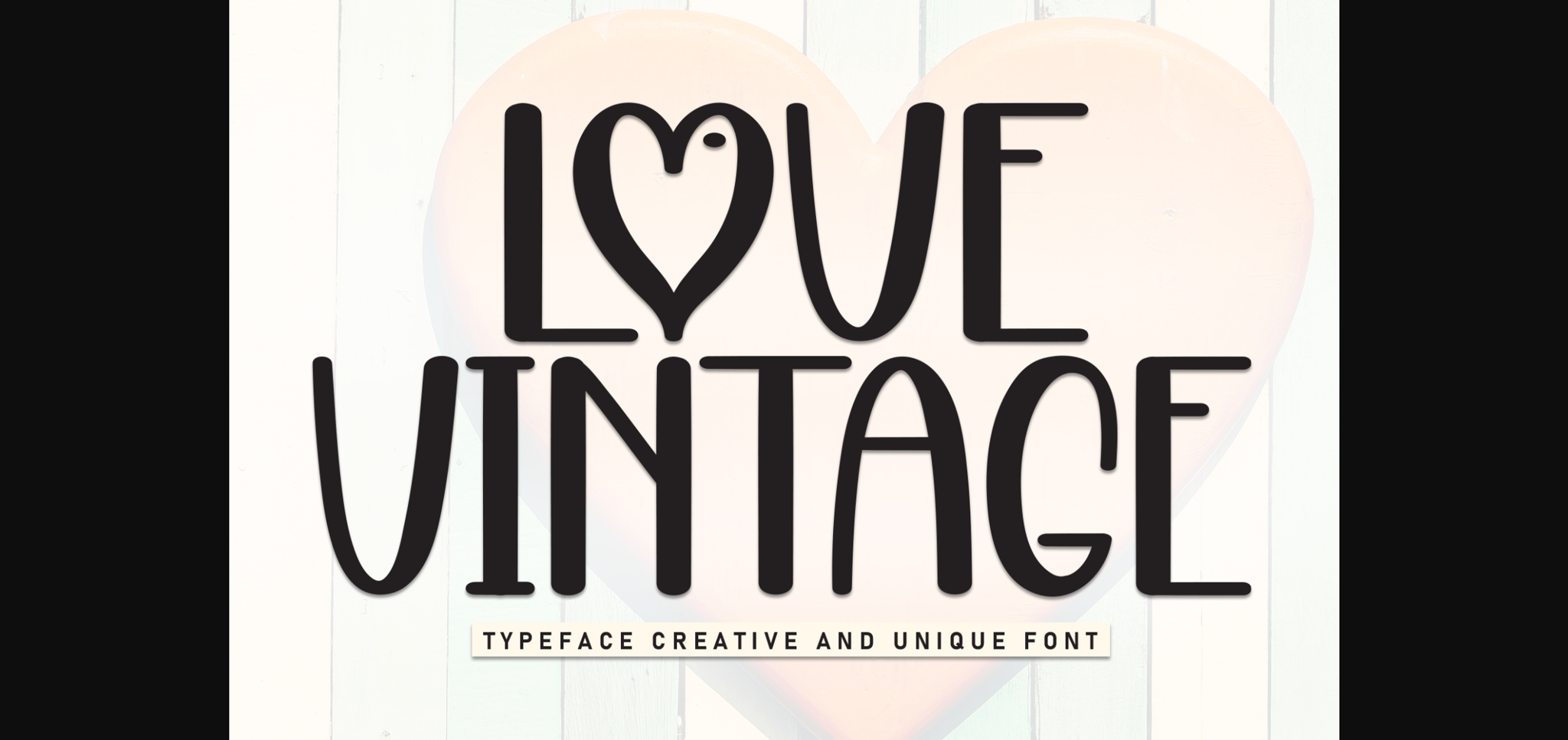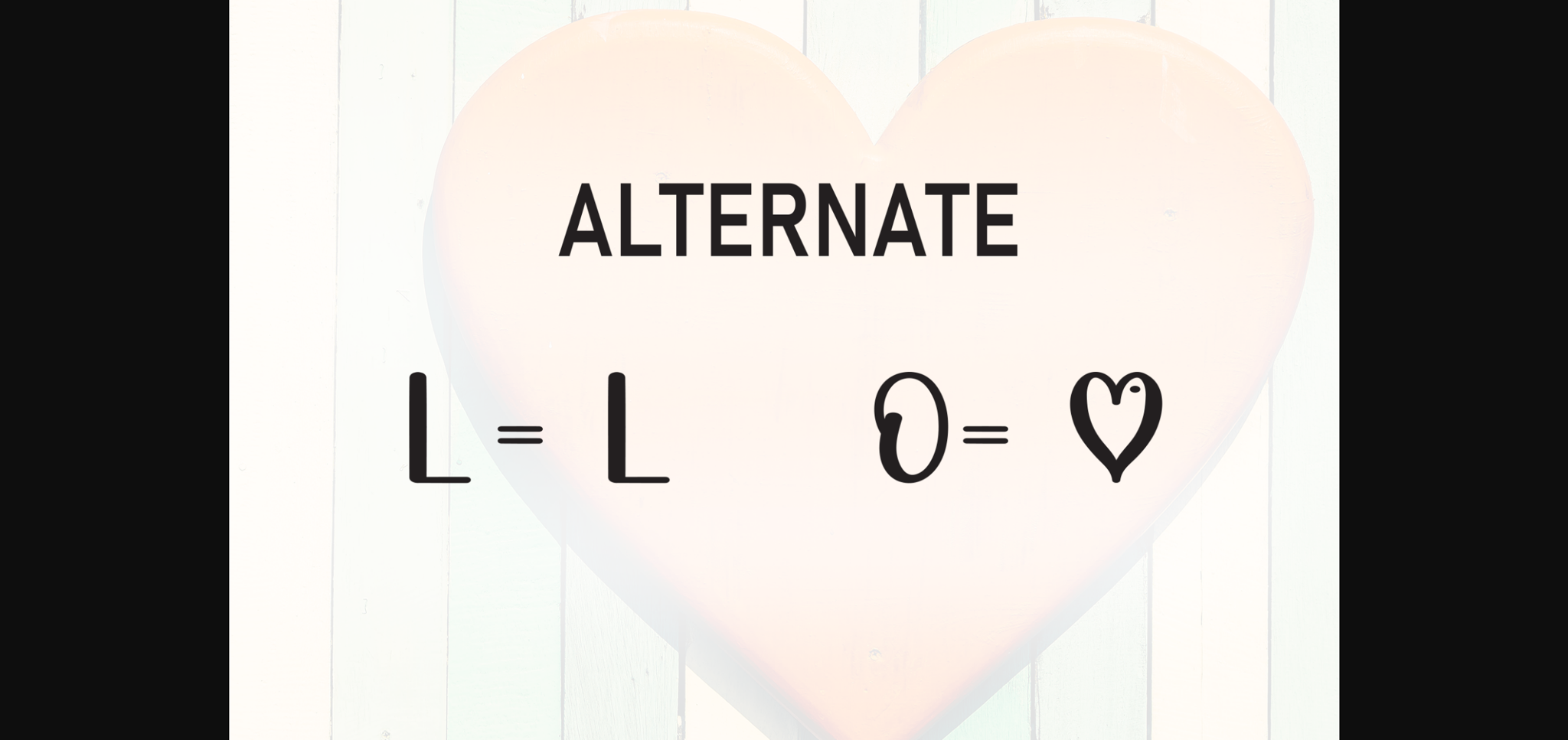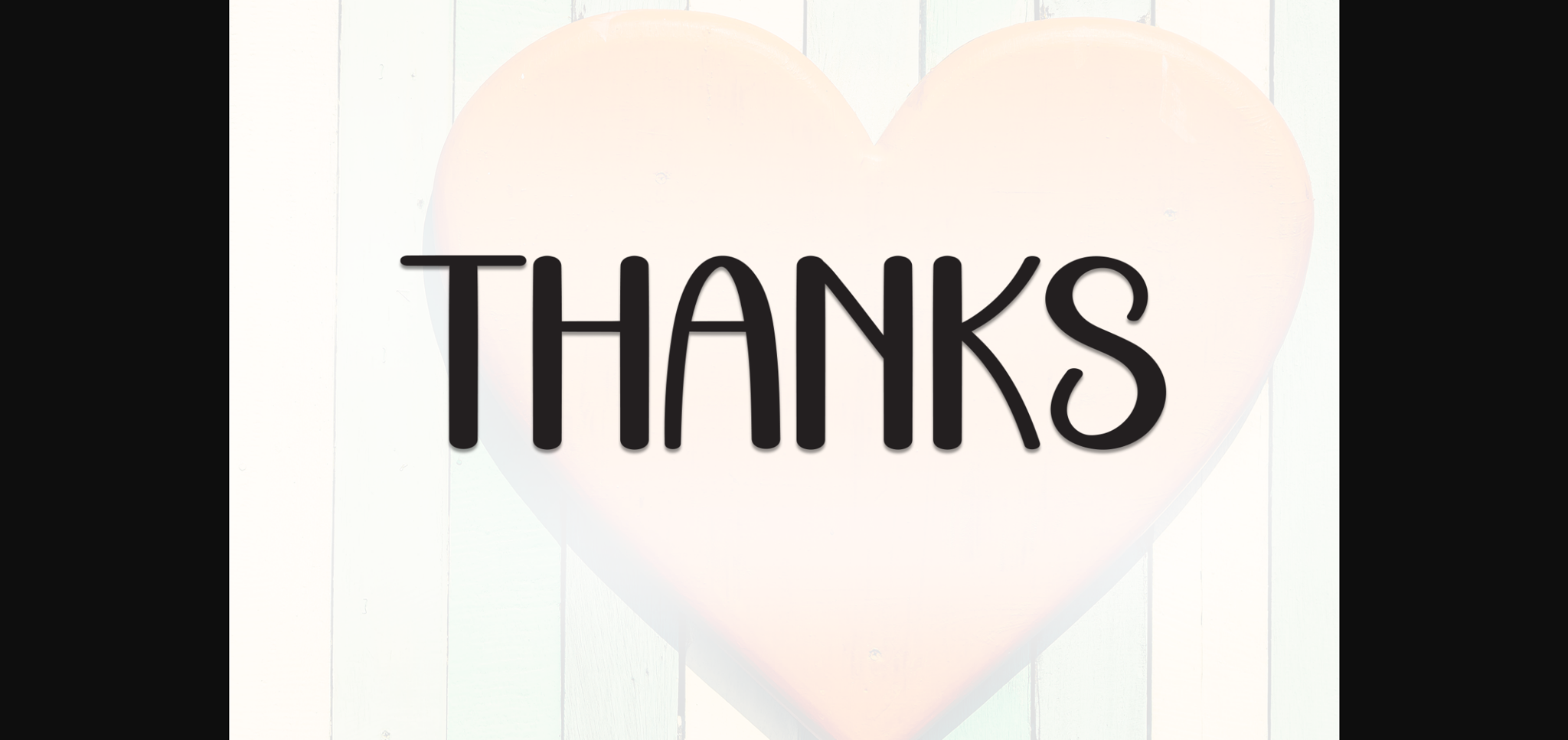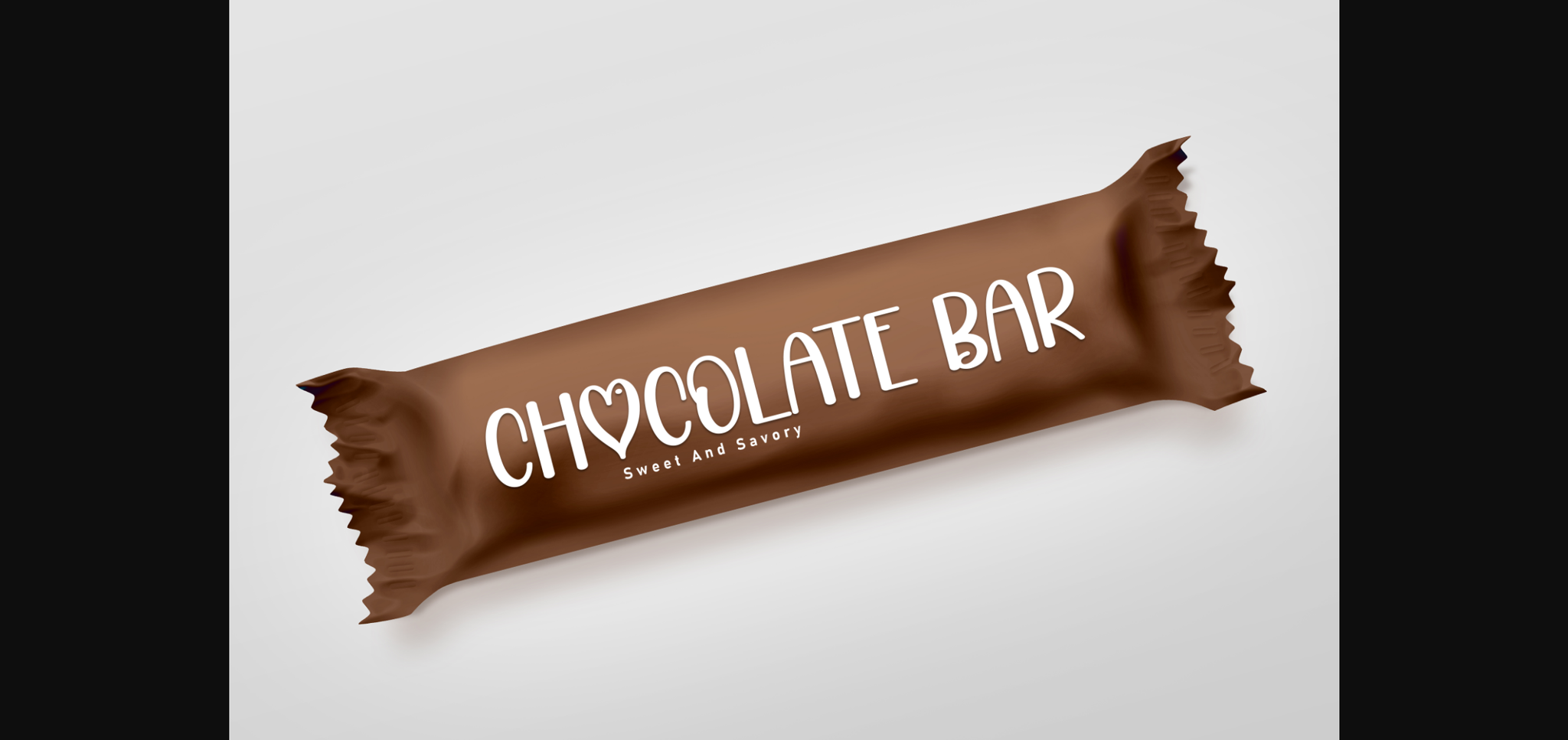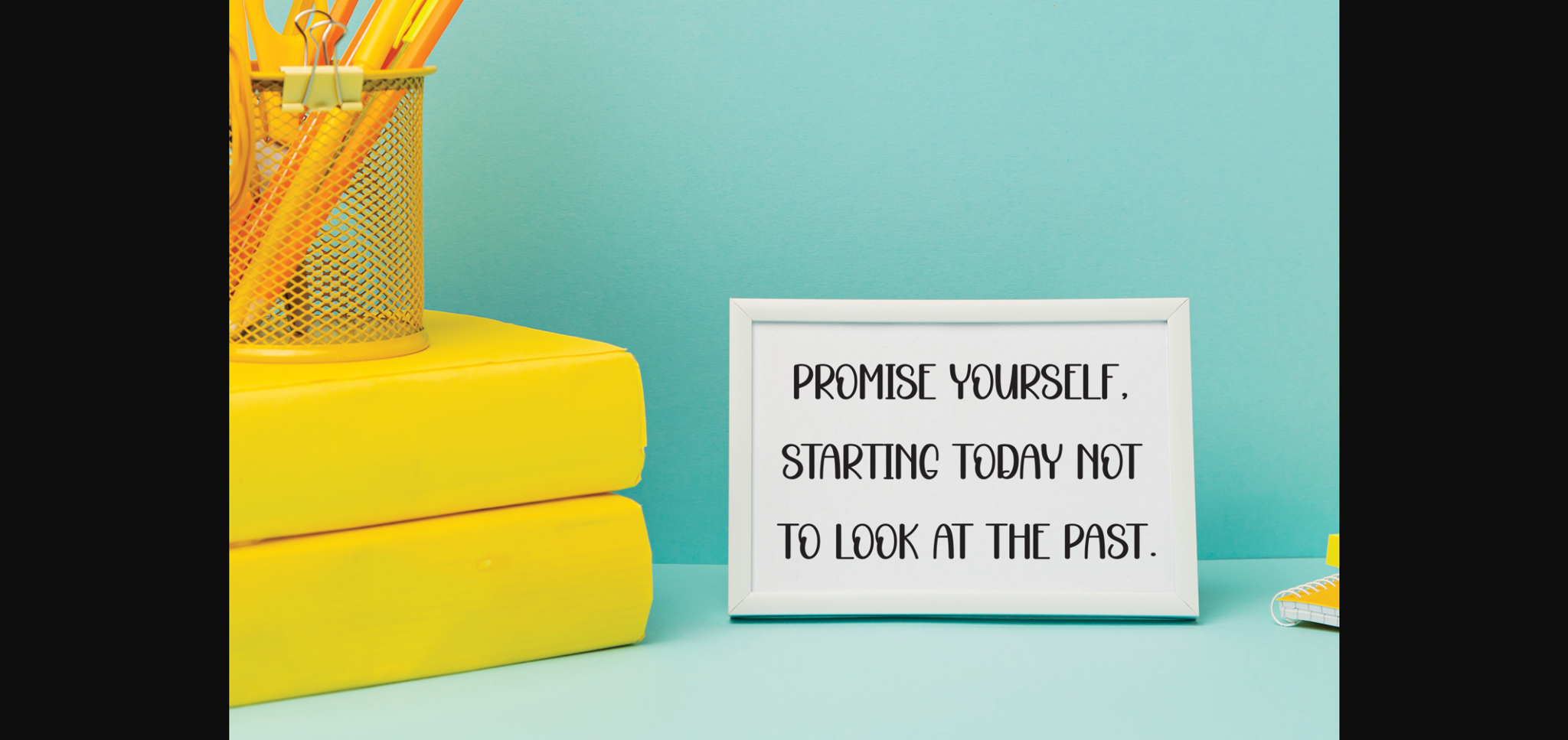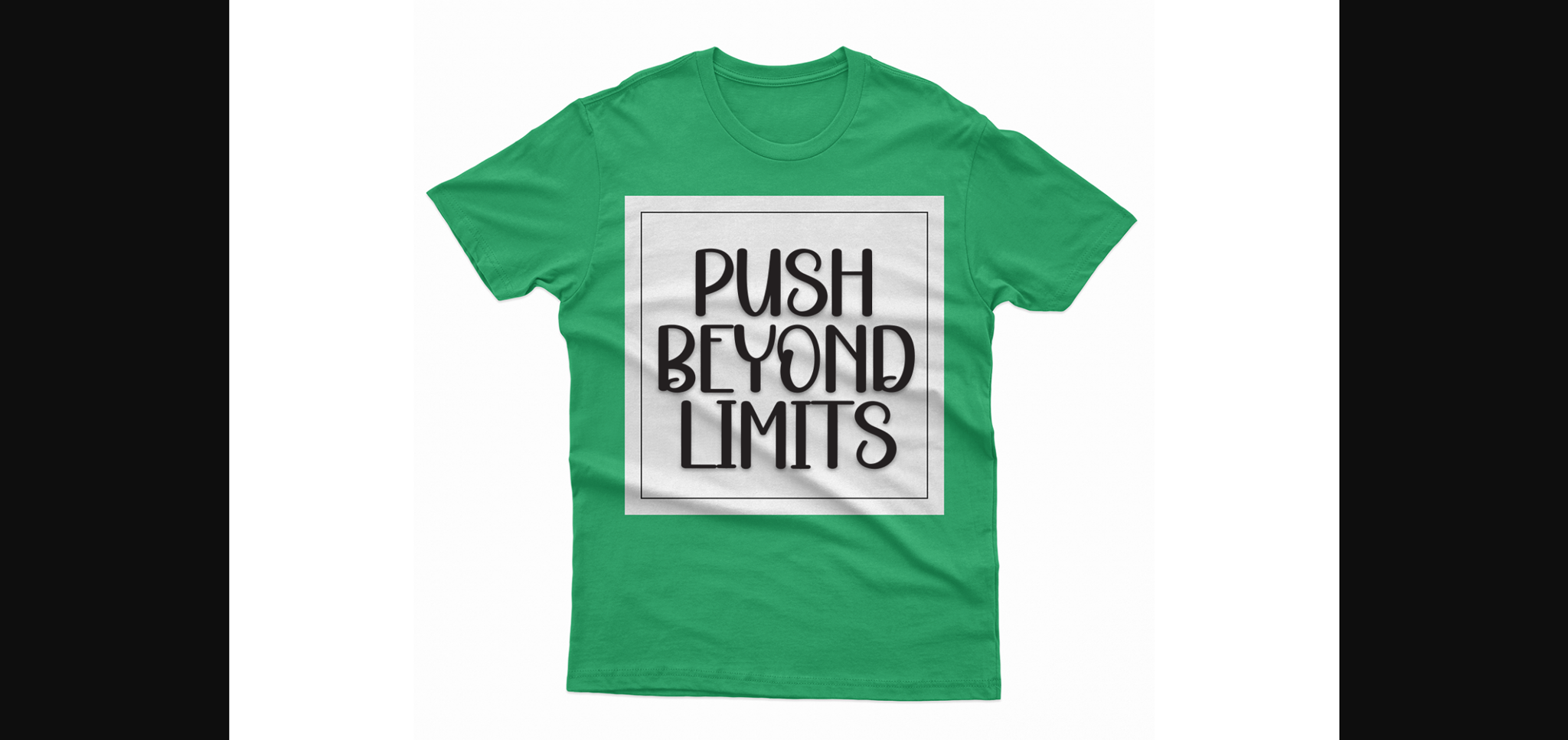
About Love Vintage Font
Introducing a charmingly casual and affable sans-serif font that embeds an irresistible jovial aura. Exuding playful warmth, this font perfectly complements wedding invitations, charming greeting cards, and a plethora of other designs in need of a fun-smitten touch. With its adorable appeal, it effortlessly infuses an air of sweetness and friendliness, making each written word a delightful encounter for your audience.